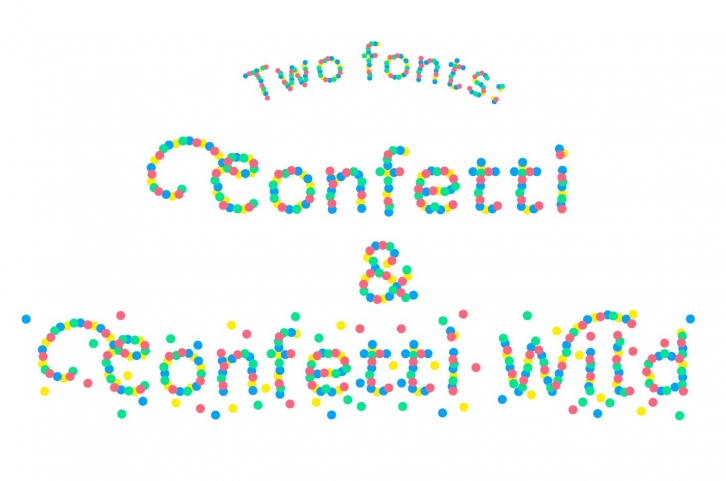
Type colorful texts with Confetti MultiColor font!
The Confetti MultiColor font is the perfect font for invitations and cards.
Offering multiple features, ornaments, and design elements, this font is the festive answer to all of your creative needs.
Font features:
- Confetti font (clean version)
- Bonus font: Confetti Wild (more decorative version with extra confetti)
- Uppercase & lowercase characters
- Extra uppercase with swashes
- Numbers, punctuation, accents
- End tails & bonus ornaments